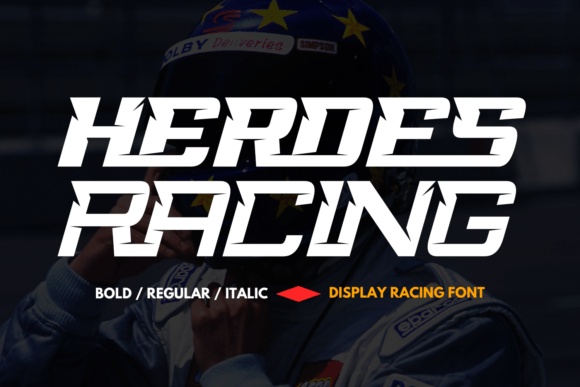
Introducing Heroes Racing Font: The Ultimate Choice for Modern Sports Branding
In the world of typography, fonts play a crucial role in conveying the tone and personality of a brand. For sports-related businesses, a font that exudes speed, power, and competitiveness is essential. This is where Heroes Racing Font comes into play. Designed with a racing style in mind, this font is perfect for creating a modern and sporty look that will leave a lasting impression on your audience.
The Design and Features of Heroes Racing Font
Heroes Racing Font boasts a unique design that sets it apart from other fonts in the market. Its sharp lines and verified tilt angle give it a dynamic and energetic feel, making it perfect for sports branding. The font’s bold and slanted shapes create a sense of movement and speed, evoking the feeling of a racing car speeding down the track.
One of the standout features of Heroes Racing Font is its use of OpenType features. This allows for a wide range of possibilities when it comes to customizing your text. The font includes 100 ligatures, alternate characters, numbers, punctuation, and support for multiple languages. This level of versatility makes it an excellent choice for a variety of projects, from headers and logos to captions and posters.
The Benefits of Using Heroes Racing Font
- Instant Recognition: The bold and vibrant design of Heroes Racing Font makes it perfect for grabbing the attention of your audience. Its competitive appearance is sure to leave a lasting impression and make your brand stand out from the crowd.
- Versatility: Whether you’re creating a logo, poster, or website, Heroes Racing Font is an excellent choice. Its sharp sans serifs and slanted shapes make it suitable for a wide range of applications.
- Language Support: With support for multiple languages, Heroes Racing Font is an excellent choice for businesses with a global reach.
Using Heroes Racing Font for Sports Branding
When it comes to sports branding, a font that exudes energy and competitiveness is essential. Heroes Racing Font is designed with this in mind, making it the perfect choice for sports-related businesses. Here are just a few ways you can use Heroes Racing Font to elevate your sports branding:
- Logos: Create a bold and eye-catching logo that sets your brand apart from the competition.
- Posters: Design eye-catching posters that grab the attention of your audience and leave a lasting impression.
- Headers: Use Heroes Racing Font to create bold and attention-grabbing headers that set the tone for your brand.
- Captions: Add a touch of personality to your captions with Heroes Racing Font’s unique design.
Tips for Getting the Most Out of Heroes Racing Font
- Experiment with Ligatures: With 100 ligatures to choose from, experiment with different combinations to create a unique look.
- Play with Font Sizes: Heroes Racing Font looks great in a variety of font sizes, so don’t be afraid to experiment.
- Pair it with Other Fonts: Heroes Racing Font pairs well with a variety of other fonts, so try pairing it with a sans serif font for a contrasting look.
In conclusion, Heroes Racing Font is an exceptional choice for sports branding. Its bold and vibrant design, combined with its versatility and language support, make it an excellent choice for a wide range of applications. Whether you’re creating a logo, poster, or website, Heroes Racing Font is sure to leave a lasting impression on your audience.